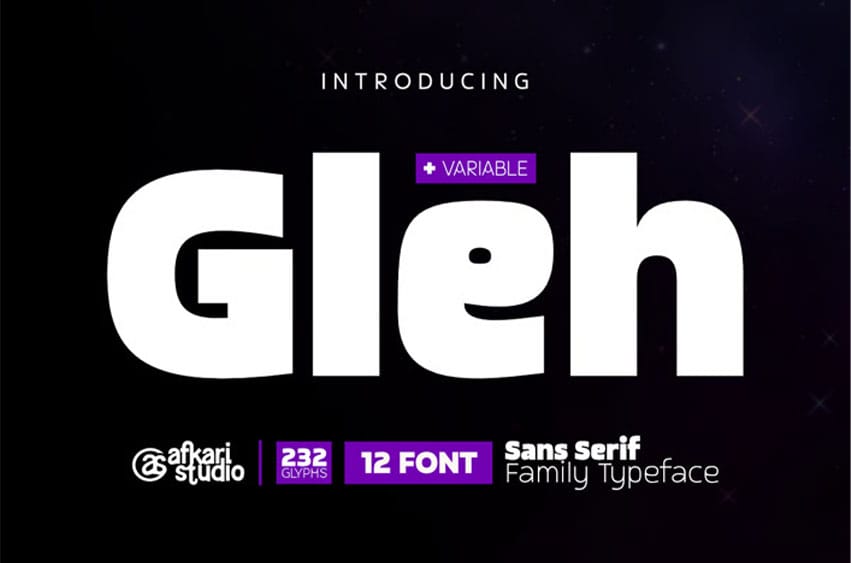
Gleh Font is a modern sans serif family typeface designed to deliver clean, versatile, and professional typography for a wide range of creative and corporate design needs. Built with balanced proportions and contemporary letterforms, Gleh offers excellent readability while maintaining a stylish modern appearance across all applications.
This typeface family includes 12 fonts, covering weights from Light to Black, along with slanted styles that allow designers to create dynamic and expressive layouts. In addition, a variable font version is included, enabling smooth weight and slant adjustments for maximum flexibility and efficient workflow in modern design environments.
Whether used for branding, editorial layouts, websites, or marketing materials, Gleh adapts effortlessly to both digital and print projects. It is designed for creatives who need a dependable and modern type system that performs consistently across various design scenarios.
- 12 font styles, Weights from Light to Black
- Uppercase, lowercase, Numbers & punctuation
- Clean and contemporary letterforms
- Excellent readability across sizes
- Mültîlíñgúãl Sùppört for; ä ö ü Ä Ö Ü ß ¿ ¡
Build consistent, modern typography with Gleh – Sans Serif Family Typeface, a flexible font family created for contemporary design systems and professional visual communication.